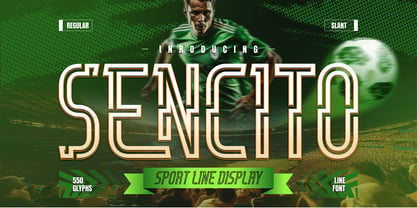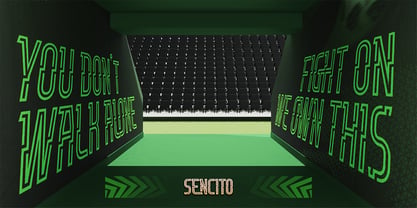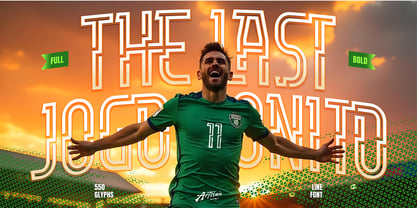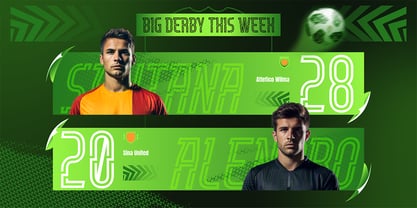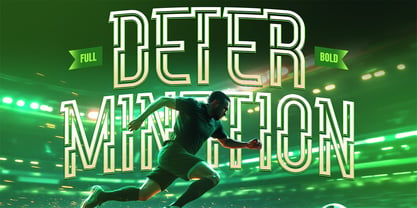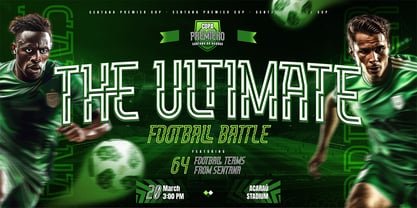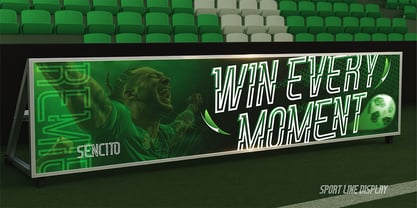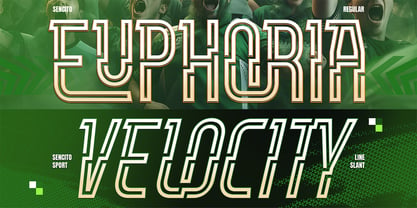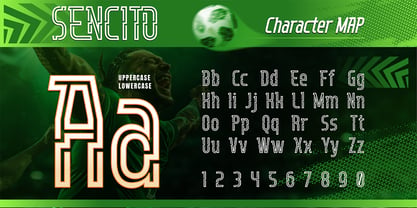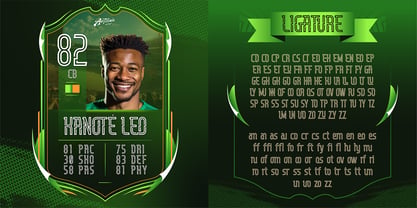
Sencito
by Artisan Themes
The Sencito Font Family was designed by Meidy Meichico and published by Artisan Themes. Sencito contains 2 styles and family package options. More about this family
Sencito is a modern line display font designed to deliver a bold and confident visual impact. Built with clean outlines and structured letterforms, this typeface offers a strong presence while maintaining clarity and balance across every character. Sencito features a distinctive layered line style that makes it perfect for standout headlines and eye-catching typography. With Regular and Slant styles, this font gives designers flexibility to create both stable and dynamic layouts, depending on the mood of the project. Its construction is solid, readable, and visually striking — ideal for designs that need to feel modern, sharp, and intentional. Whether used for posters, branding, editorial layouts, packaging, or digital graphics, Sencito adapts easily to a wide range of creative needs. It works especially well for bold titles, statement text, and visual concepts that demand attention without sacrificing structure. Features: A - Z set (Uppercase & Lowercase All Caps), Number, Punctuation, Alternates, Ligatures, Multilingual
Designers: Meidy Meichico
Foundry: Artisan Themes